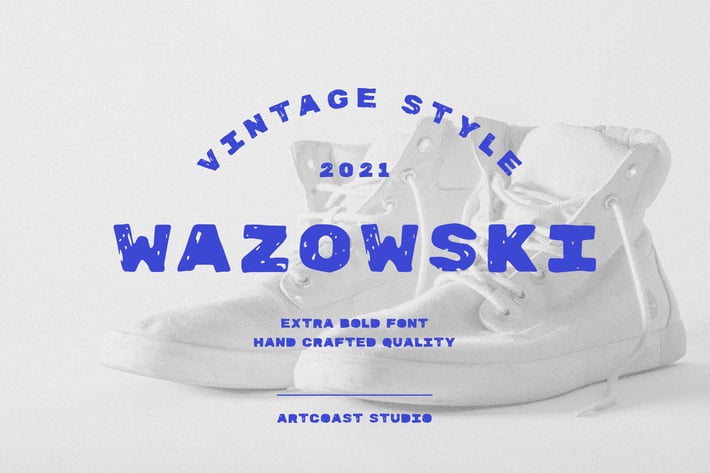
Wazowski - Bold Rough Typeface
Introducing Wazowski, a bold sans-serif display font. Brings a strong yet elegant atmosphere with a modern style. great for typography purposes that require a strong but subtle identity.